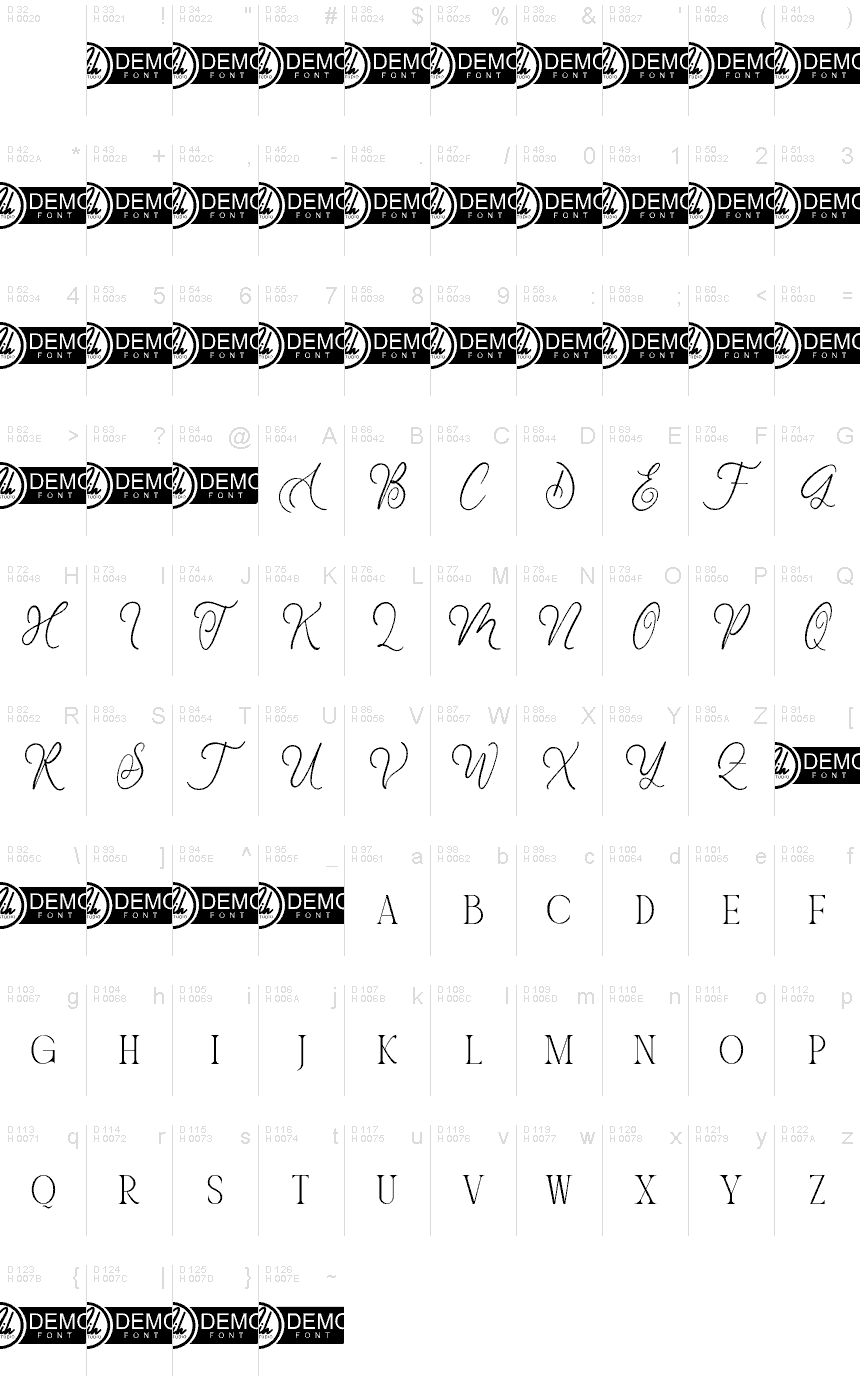
Margareth Flora Demo
Margareth Flora font by NihStudio is a light display font that emanates elegance and sophistication. With flowing script integration, it offers a refined look that is both formal and visually captivating. Margareth Flora is the perfect free display font for those who love a professional print project, website, poster, banner, T-shirt, greeting card, or packaging design.
Ideal for adding elegance to typography on certificates and business cards; this stylish typeface fits perfectly with labels and lettering too. Its sophisticated nature makes its presence felt in every icon or branding idea you prepare!